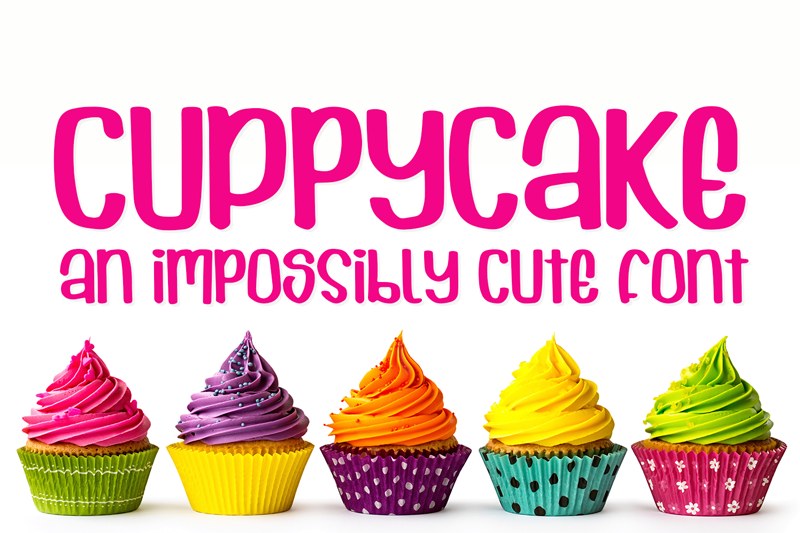
Preview and download Cuppycake Font. Created by Amber Nest in Fancy Cartoon styles with Free for personal use license.
Font name: | Cuppycake |
Author: | Amber Nest |
Note by Amber Nest | |
Meet Cuppycake, an impossibly cute font! This adorable font is ideal as a display font as both upper and lower case letters have the same height. In total this free version of Cuppycake has 349 glyphs for you to play with and enjoy, including multilingual support. The commercial version of Cuppycake includes 53 ligatures and stylistic alternatives, and is available from my font bundles store.(Linked below.) I hope you enjoy using this font! ♥ If you would like to purchase a full commercial version of this font, head over to my font bundles store: https://fontbundles.net/ambernest/458176-cuppycake-an-impossibly-cute-font |